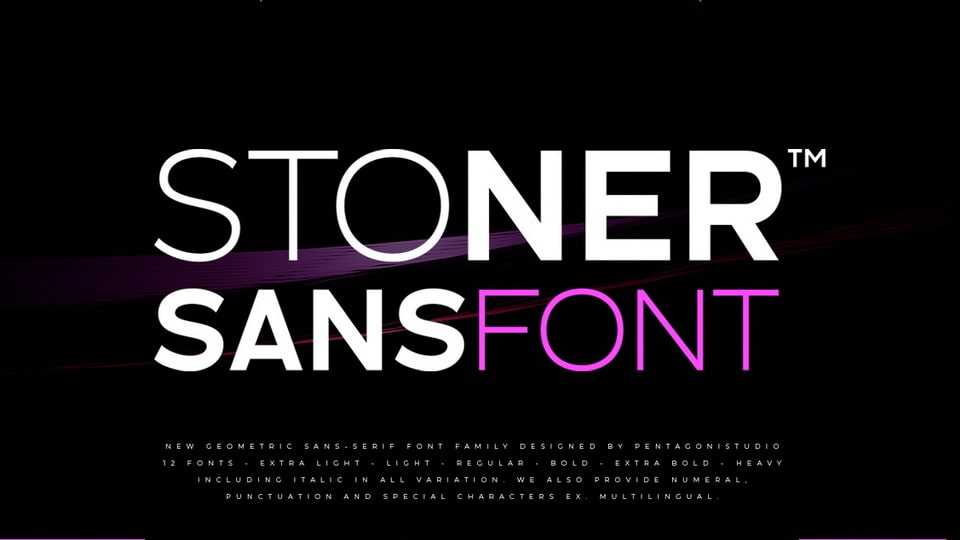
Download Stoner font, a geometric sans serif typeface inspired by modern typography. Stoner is a versatile typeface that works perfect both in display and text use.
Designer: Pentagonistudio